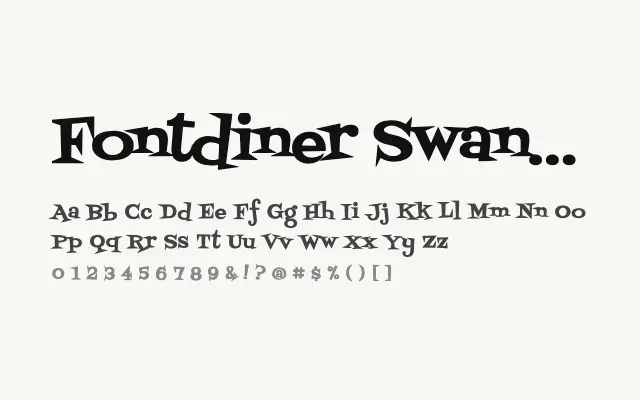
Fontdiner Swanky
An unabashedly retro display typeface channelling the exuberant spirit of 1950s American diner and pop culture graphics.
Fontdiner Swanky leans fully into mid-century American kitsch, with letterforms that reference neon signage, jukebox typography, and drive-in culture. Its single-weight design is unapologetically decorative, making it unsuitable for body text but highly effective for themed branding, event posters, menus, and retro packaging. It is a one-trick typeface, but it executes that trick with committed enthusiasm.
A bold, exuberant display face designed to evoke mid-century American diner and doo-wop signage, with chunky letterforms, quirky details, and a self-consciously retro personality.